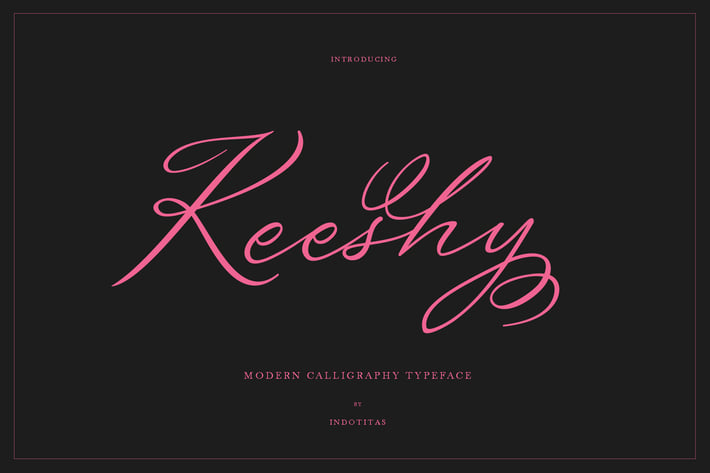
Keeshy Modern Calligrapy Typeface
Keeshycreated with modern calligraphy characters. This modern calligraphy font was PUA encoded.
Keeshy is a natural calligraphy style that comes with Extended Latin Characters. Keeshy works perfectly for logos, display, product branding, wedding invitation card, stationary, packaging, clothing, flyer, apparel, magazines, brochures, lable, posters, badges, etc.
Keeshy comes with 273 glyphs and 52 alternate characters contain with opentype features (supported with contextual alternates mode). Keeshy also comes with 9 extended ligatures that allowing you to make stuff looks more exclusive and pro standard.